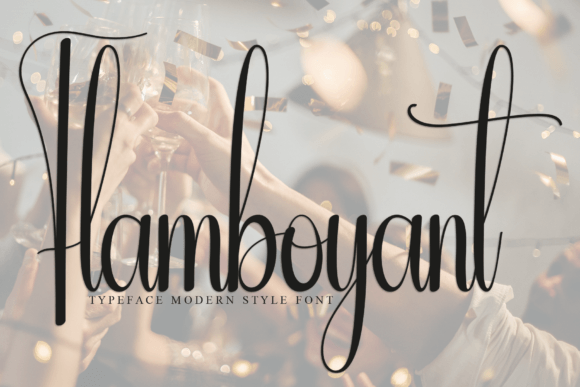
Enter the Flamboyant Font, a charming handwritten font that’s as sweet as it is friendly. Designed to add a fresh and neat touch to any design, this font is perfect for writing wedding invitations, cards, or any other project that needs a dash of fun. Whether you’re a seasoned designer or a DIY enthusiast, the Flamboyant Font is a valuable addition to your toolkit – and a great way to inject some personality into your work.
Flamboyant Font Key Features
- Unique Characteristics: Distinctive, swash-like connections between letters, and a playful, handwritten feel
- Font Style: Script, with a flair for drama and flair
Designer Review: Flamboyant Font
Flamboyant Font is a showstopper. ✨ The moment I laid eyes on it, I knew I had to give it a spin. The first thing that caught my attention was its bold, statement-making personality. It’s the kind of font that demands attention and makes a real impact on any design project.
The font’s versatility is another major selling point. ✨ Whether you’re working on a high-end luxury brand or a fun, quirky startup, Flamboyant Font is sure to bring the right amount of flair. It’s also surprisingly readable, which is no small feat considering its ornate design.
The Not-So-Good Stuff
While Flamboyant Font is certainly eye-catching, it’s not without its limitations. ⚠️ For one, it can be a bit overwhelming if used in large blocks of text. I’ve found that it works best when used sparingly, as an accent or highlight. Additionally, some users may find it difficult to read in smaller sizes.
Overall, I’d give Flamboyant Font 4 out of 5 stars. ✨ While it’s not perfect, its strengths far outweigh its weaknesses. With a little creative restraint, this font can add a level of sophistication and personality to any design project.
- Bold, statement-making personality
- Highly versatile and adaptable
- Surprisingly readable
- Works best when used sparingly
- Can be difficult to read in smaller sizes
Getting the Most Out of Flamboyant Font
For the most effective use of Flamboyant Font, consider the following tips:
- Use it sparingly to create emphasis and visual interest.
- Pair it with a neutral background to make it stand out.
Flamboyant Font is commonly used for:
- Headlines and titles.
- Emphasis and highlighting text.
- Creating a playful and whims